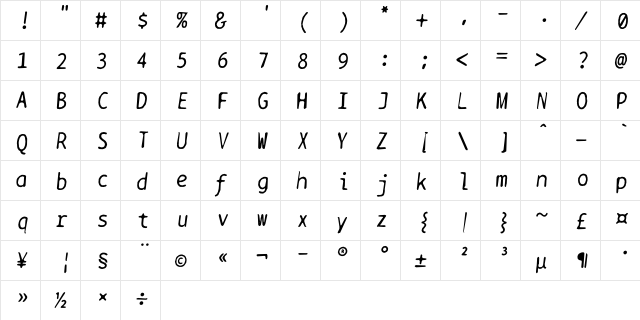
BPtypewriteDamaged Italic
Design Context for BPtypewriteDamaged Typeface
BPtypewriteDamaged takes a measured approach to typography — its balanced proportions and neutral character make it a reliable workhorse for both digital and print work. Its italic angle brings a sense of urgency and motion to the letterforms.
Pro Tip: Use BPtypewriteDamaged for emphasis, pull quotes, and subheadings where its slanted energy can add rhythm to the layout.